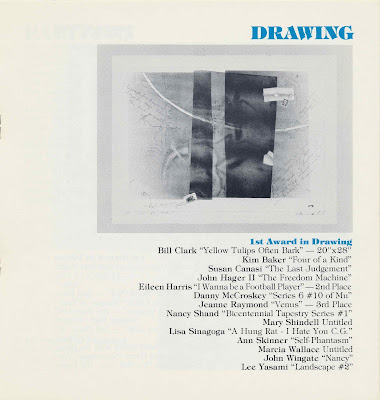
School Days: W.C. Fields Shorts
At Arizona State University I was enrolled in Vanessa Vargo’s illustration class which was at 7:40 in the morning. For one of the assignments I created a poster promoting short films starring W.C. Fields. The “W.C. Fields Shorts” program was scheduled at the Memorial Union (MU) Movie House for October. The assignment called for the poster to be 18 by 24 inches (45.7 x 61 centimeters) and printed in two colors.
I don’t have the thumbnail sketches but the concept was based on showing Fields in boxer shorts. Below are the top hat, headless Fields figure and lettering drawn on vellum. The lettering was based on the Koloss typeface in the Letraset catalog. (The alphabet can be viewed here.) Graphite was rubbed on the reverse side of the vellum then the top hat and lettering were transferred to illustration board and inked. Letratone was adhered over the lettering and parts of the hat. Four dancing figures, wearing different patterned orange shorts, were rendered in ink and gouache. Pantone paper was used for the background. The first version had an orange background. The second version used brown which made the orange shorts pop out.
I entered the poster in the Department of Art’s 1976 Annual Art Student Exhibition which was jurored by Misch Kohn.
Catalog design by Leon Dunn, ASU Graphic Design Workshop
Cover photography by Chris Hornung
Typeface: ITC Tiffany